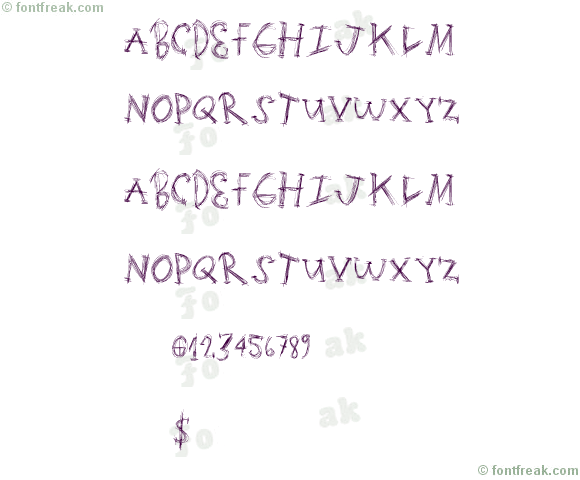
ScratchingMatters
About ScratchingMatters
ScratchingMatters, created by XEROGRAPHER FONTS in 2013, is a distinctive display font that blends a playful and artistic style, making it an excellent choice for various creative projects. This font showcases a hand-drawn aesthetic, characterized by uneven line weights that evoke a sense of spontaneity and charm. The slightly irregular spacing between letters adds to its organic feel, while the decorative elements give it a unique personality that sets it apart from more conventional typefaces.
This font is particularly well-suited for use in eye-catching movie posters, where its whimsical nature can attract attention and convey a sense of fun. Additionally, it works wonderfully for restaurant menus, especially for establishments looking to highlight a casual and inviting atmosphere. Wedding invitations can benefit from the romantic yet quirky flair of ScratchingMatters, making them memorable for guests. Content creators, such as bloggers and social media managers, can utilize this font to enhance their visuals, adding a touch of creativity to their graphics. Furthermore, small business owners looking to establish a unique brand identity will find this font to be an effective tool in their marketing arsenal.
What truly sets ScratchingMatters apart is its vibrant personality and artistic flair, making it an ideal choice for projects that require a touch of whimsy. Its distinctive style ensures that it captures attention and leaves a lasting impression, making it a valuable addition to any designer’s toolkit. Don't miss the opportunity to explore the ScratchingMatters font free download and unleash your creativity.